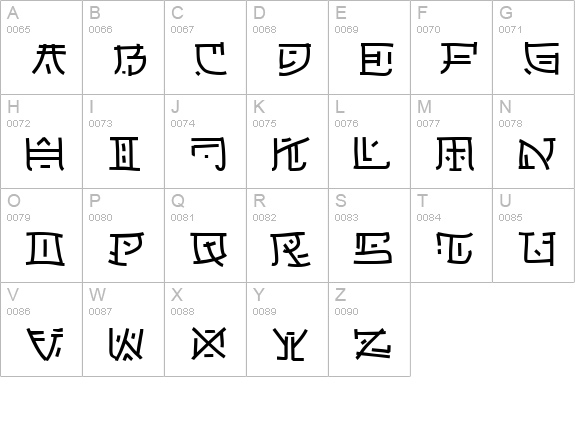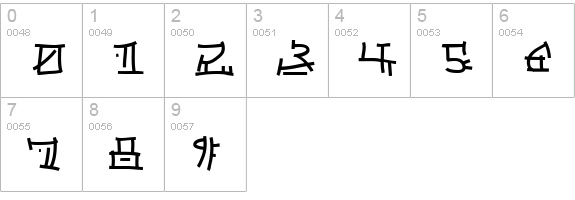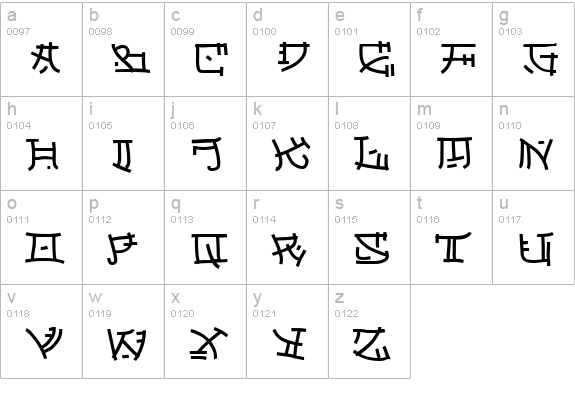
Japperneese Font Details
Japperneese font is a stunning display typeface that combines traditional Japanese aesthetics with a modern twist. Its elegant strokes and intricate details make it perfect for adding a touch of sophistication to any design project. The characters are inspired by Japanese calligraphy, resulting in a unique and artistic appearance that will surely captivate your audience. The best part? Japperneese font is completely free to download at FontsMarket.com. Whether you're working on a branding project, a website design, or any other creative endeavor, this font will elevate your work to the next level. Don't miss out on the opportunity to enhance your designs with this beautiful and versatile typeface. Download Japperneese font today and let your creativity shine!